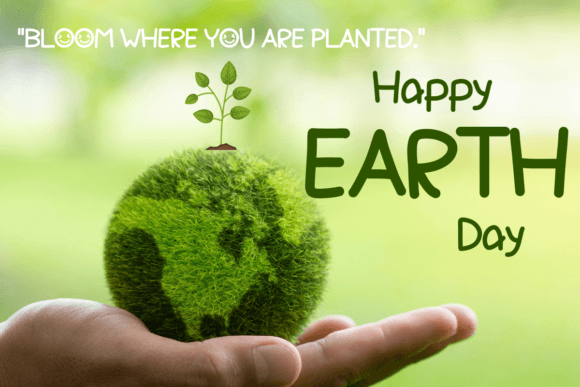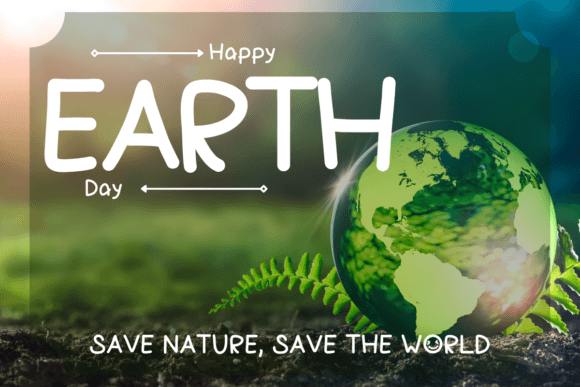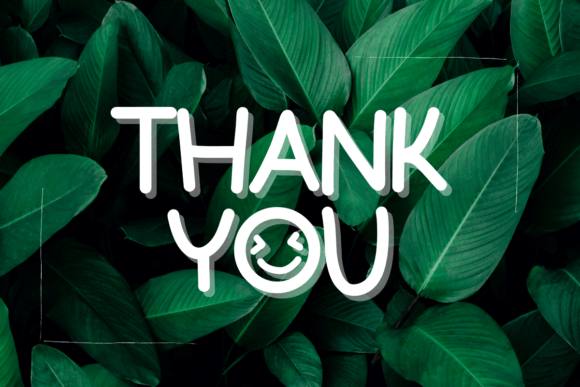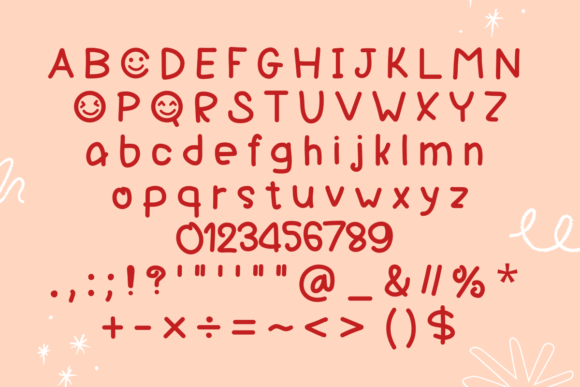
Introduction to Quora Font
Do you ever find yourself scribbling down notes or ideas in a beautiful, handwritten font, only to wish you could use it in your creative projects? I know I do! That’s why I’m excited to introduce you to the Quora Font, a high-quality, friendly handwritten font perfect for designers and non-designers alike.
Whether you’re working on a personal project, like a diary or a greeting card, or collaborating with clients on a design project, the Quora Font is a valuable resource. Its transparent background and free download make it easy to incorporate into your work, and its versatility means you can use it on a wide range of designs, from social media posts to banners and stationery.
- High-quality design: Quora Font is designed with precision and attention to detail, making it perfect for creative projects that demand a professional look.
- Transparent background: This font features a transparent background, allowing designers to easily combine it with other design elements and create visually appealing compositions.
- High-resolution design: Quora Font is designed at a high resolution, ensuring that it looks crisp and clear even when scaled up or down.
- Unique characteristics: Quora Font features a distinctive and elegant design style, making it perfect for creative projects that require a touch of sophistication and refinement.
Honest Review: Quora Font
I recently stumbled upon the Quora Font, a high-quality design resource that caught my attention. The font is a perfect fit for a creative project that requires a modern and sleek aesthetic. One of the standout features of the Quora Font is its transparent background, which allows for seamless integration into any design.
What works well for the Quora Font is its versatility and range of applications. It’s suitable for digital and print designs, making it a valuable asset for designers. The font is also free to download, which is a definite plus. Here are some of its notable features:
- Modern and sleek aesthetic
- Suitable for digital and print designs
However, there are some limitations to consider ⚠️. The Quora Font may not be suitable for very small text sizes, as it can become difficult to read. Additionally, the font may not be as customizable as some other design resources. Overall, I think the Quora Font is a solid choice for designers, especially those working on modern and creative projects. It’s a great addition to any design resource library. ✨
Experiment with different font sizes and colors to create visual interest. Use Quora Font in combination with other design elements to add depth and texture to your design. Consider using it for headings or titles to make them stand out.
Quora Font is suitable for a variety of creative projects, including blog posts, social media graphics, and marketing materials. It’s also a great choice for creating visually appealing presentations and reports.